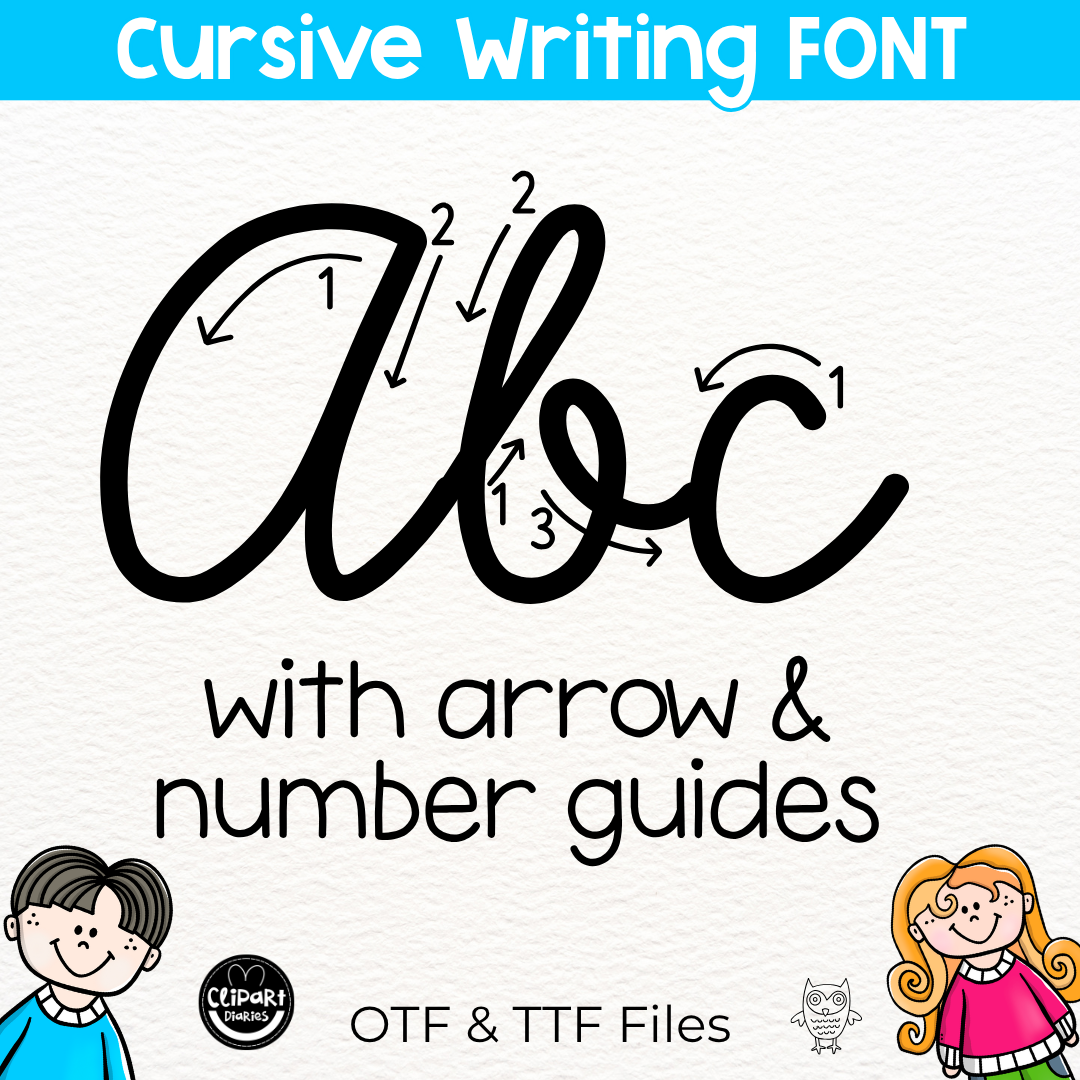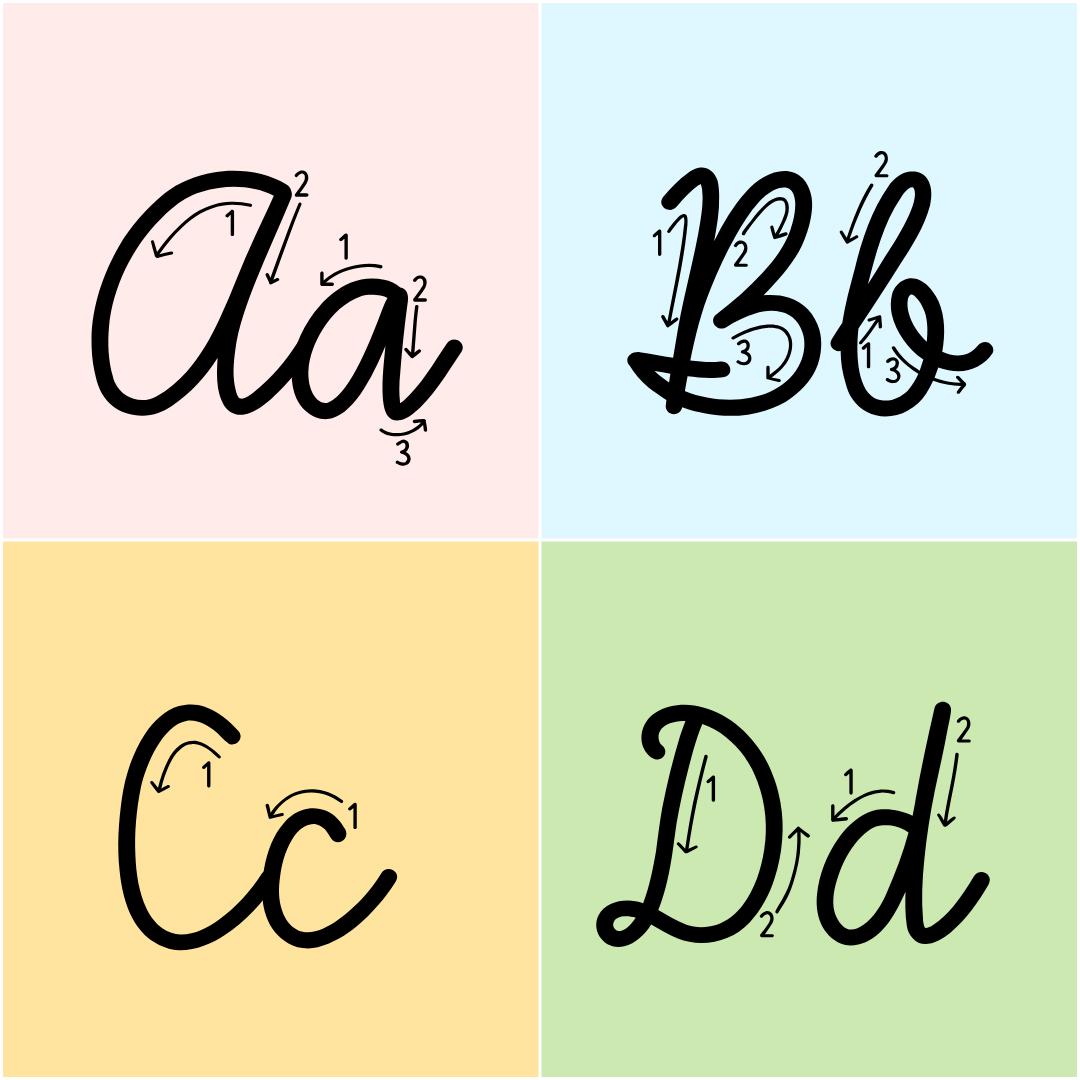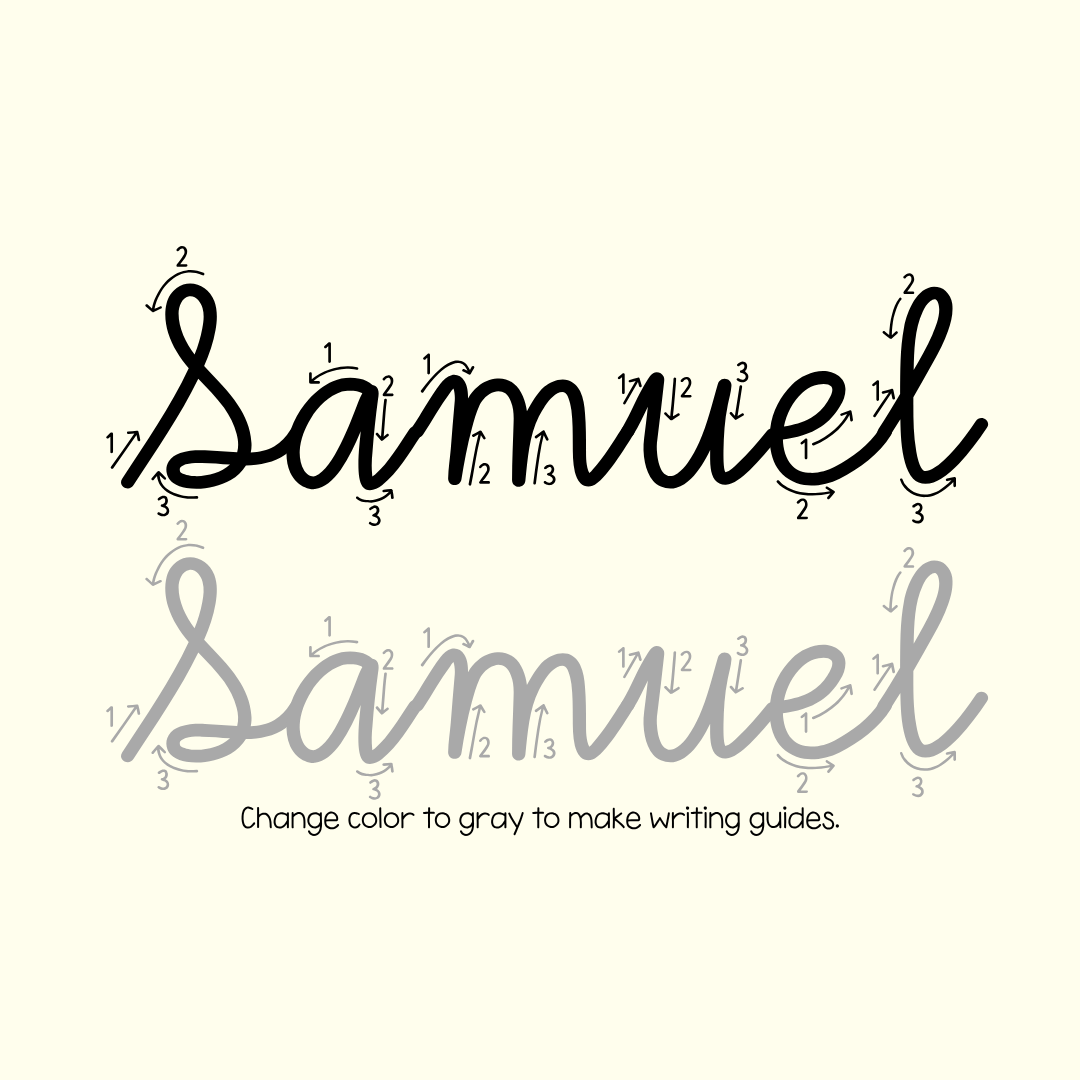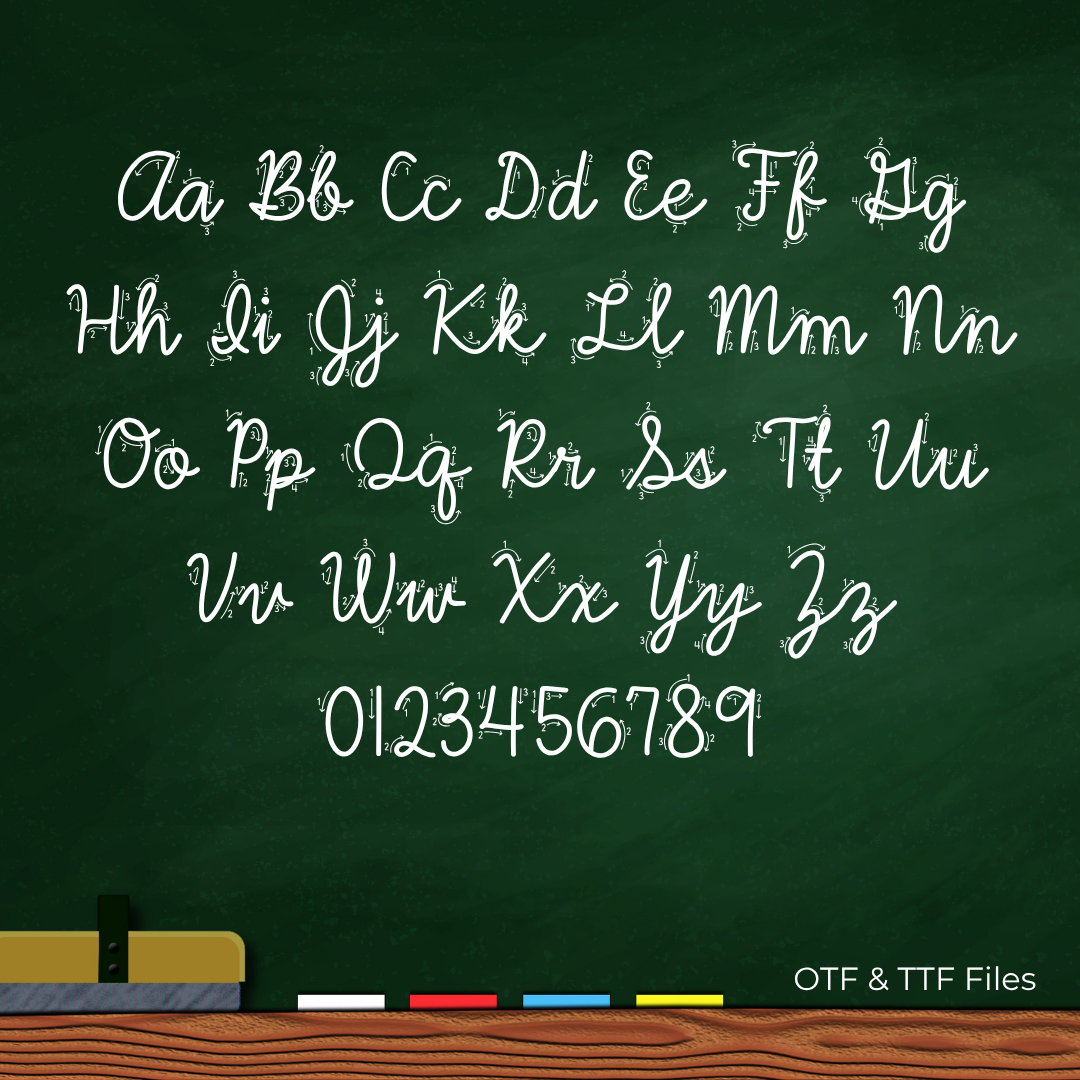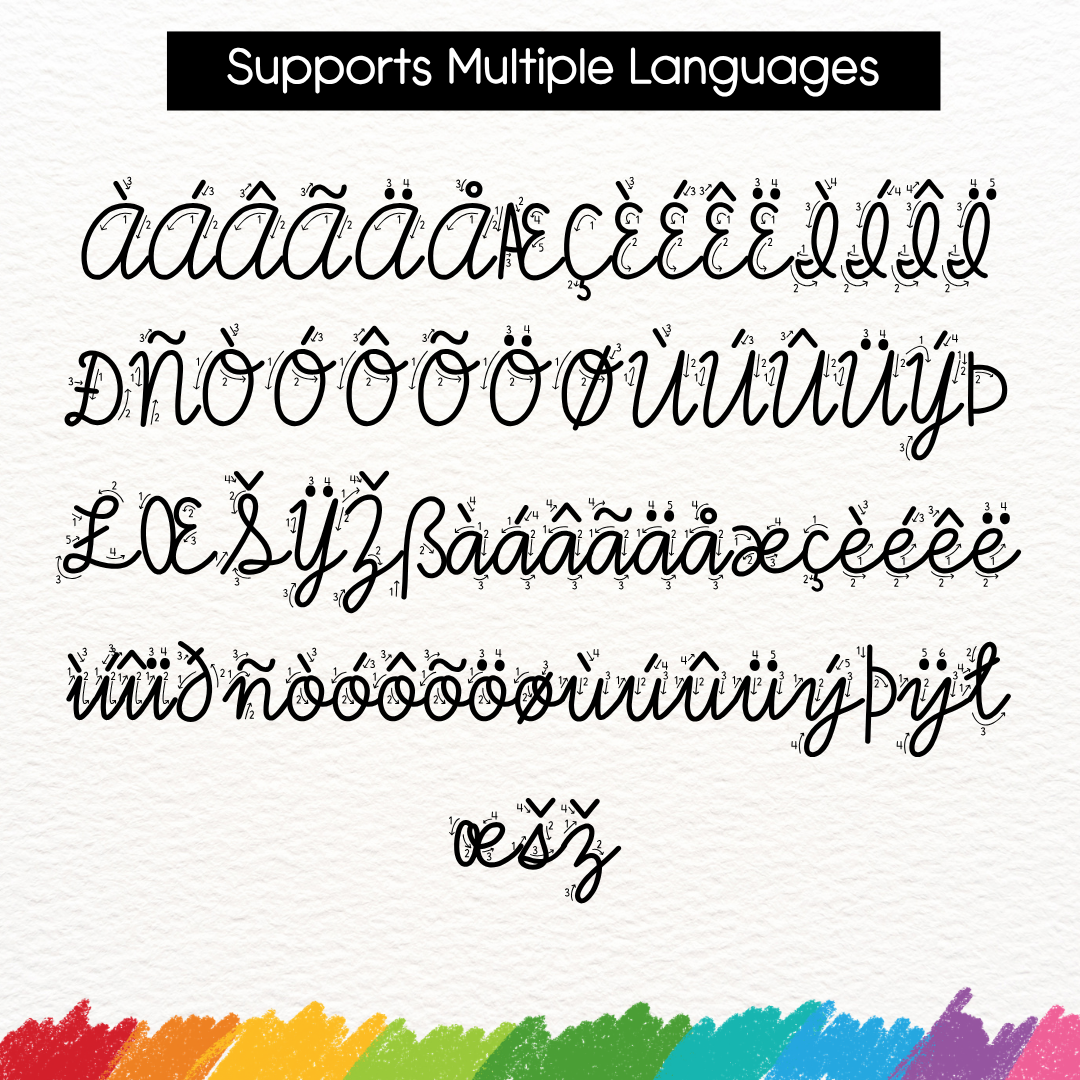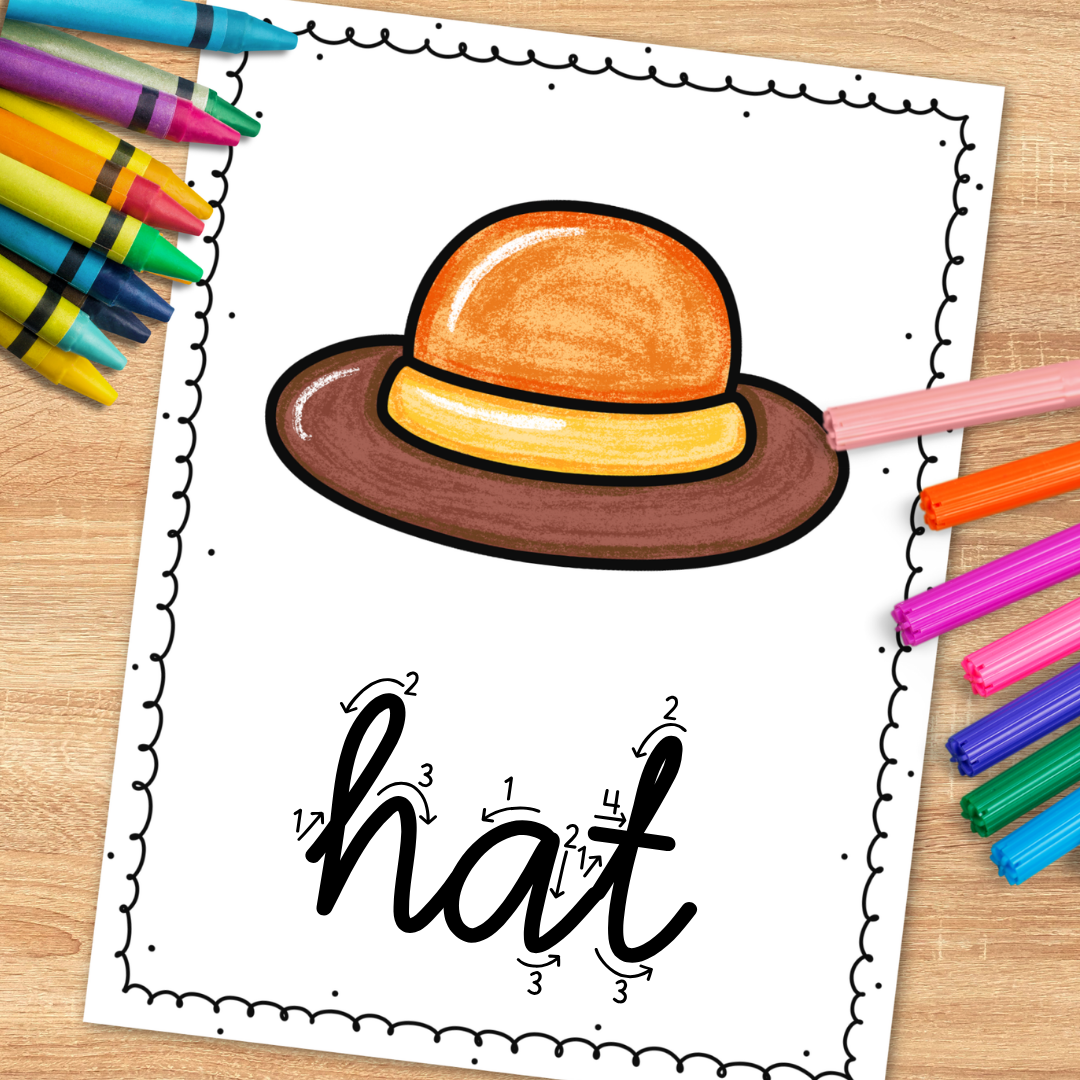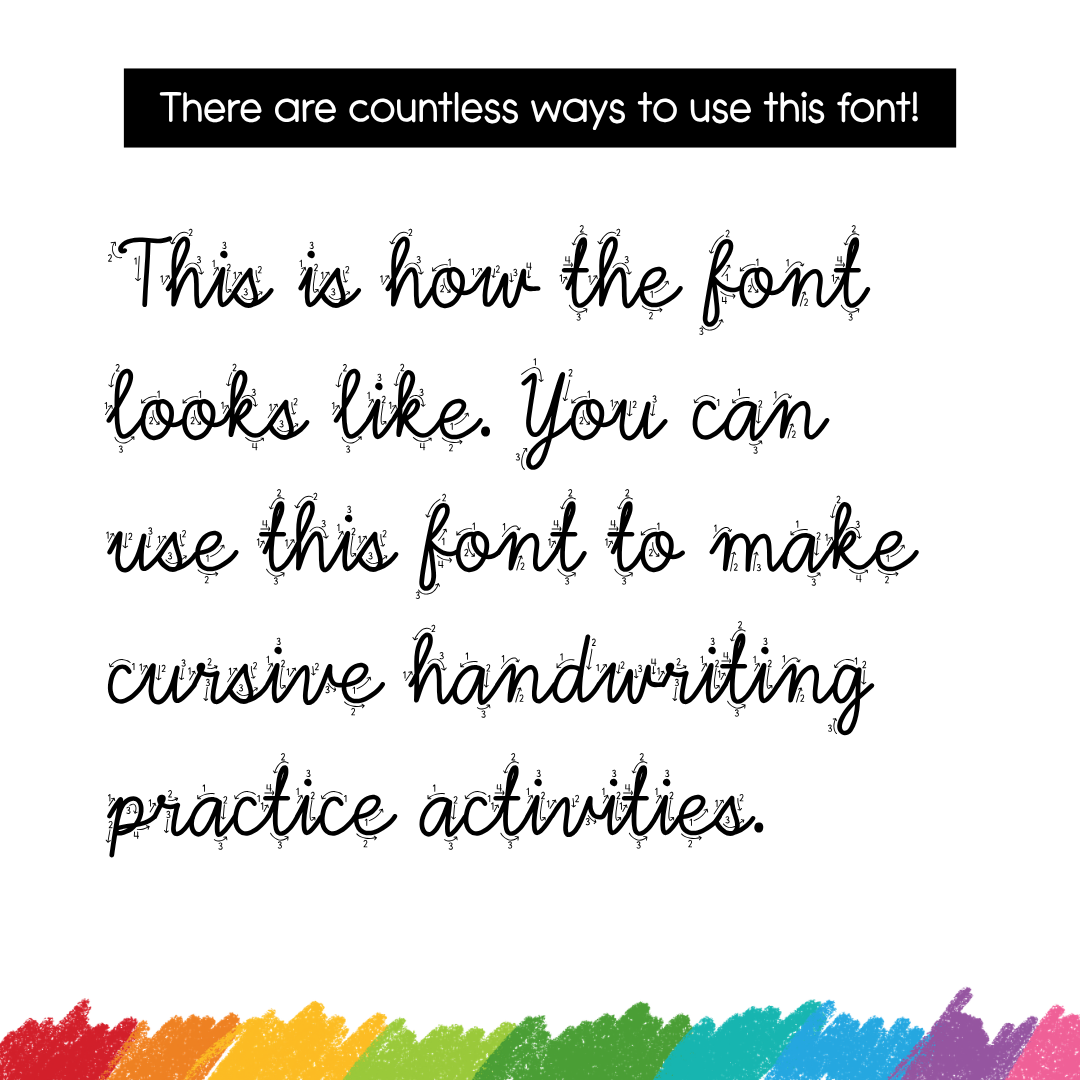
Cursive Font with Directional Arrows and Number Guides for Handwriting Practice or Tracing Activities – Diary Cursive 3 – Personal and Commercial Use
This cursive handwriting font has directional arrow and number guides on each letter to help students practice writing cursive letters. You can use this tracing font with arrows to create handwriting worksheets, tracing activities, alphabet posters, classroom décor, and other resources. The font is suitable for both personal and commercial projects. You can use this font on products intended for sale.
This font supports multiple accents and languages.